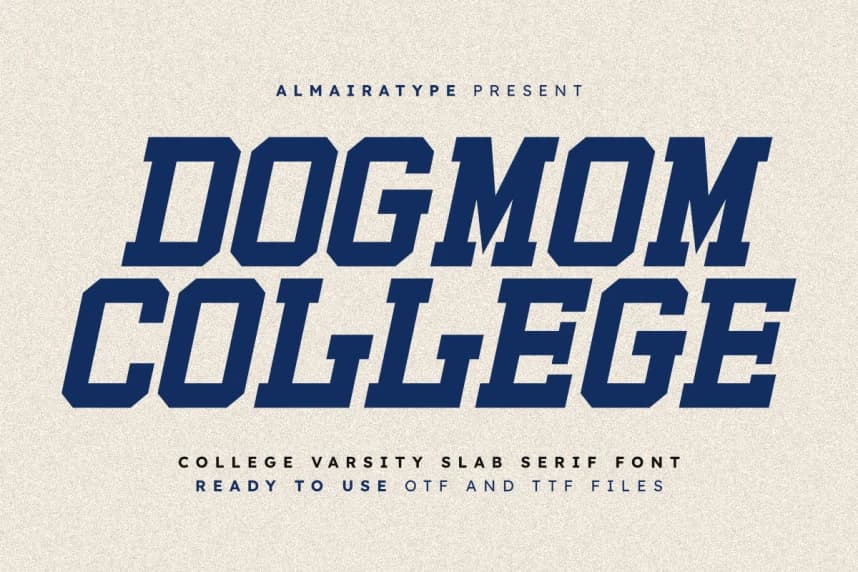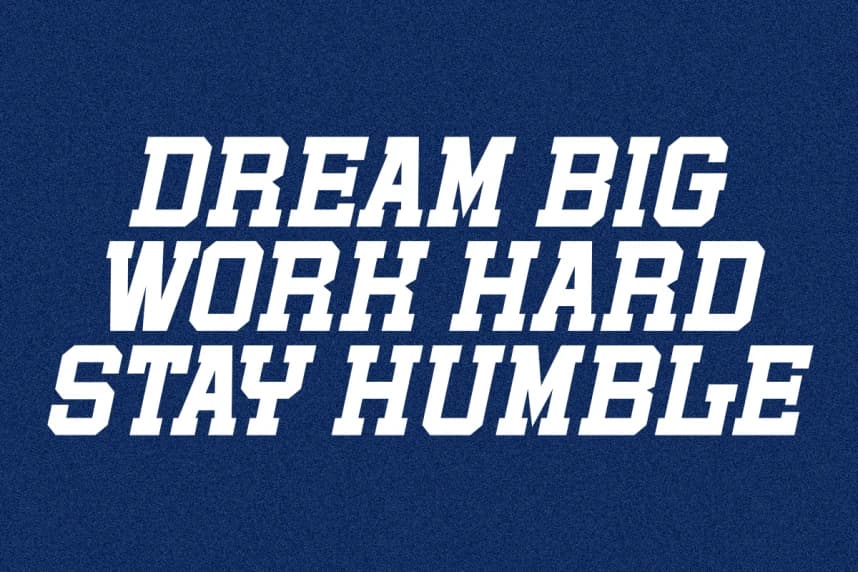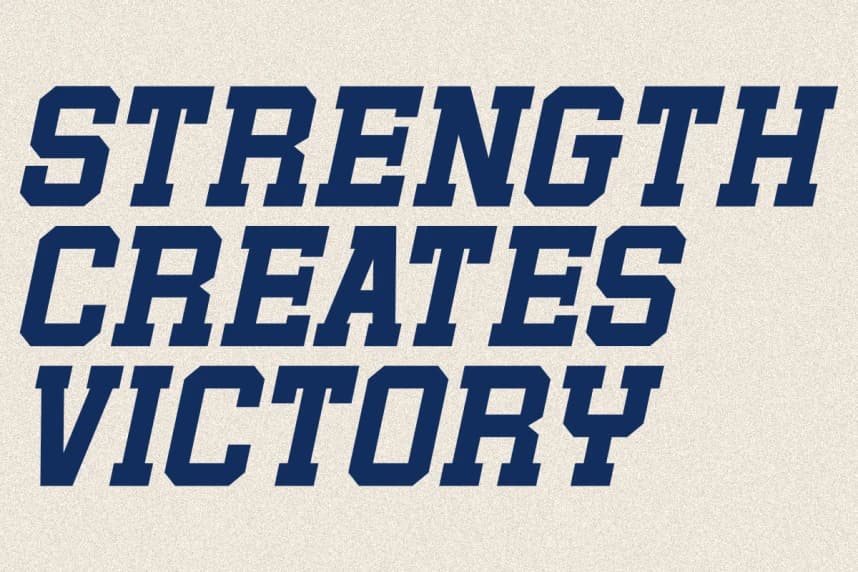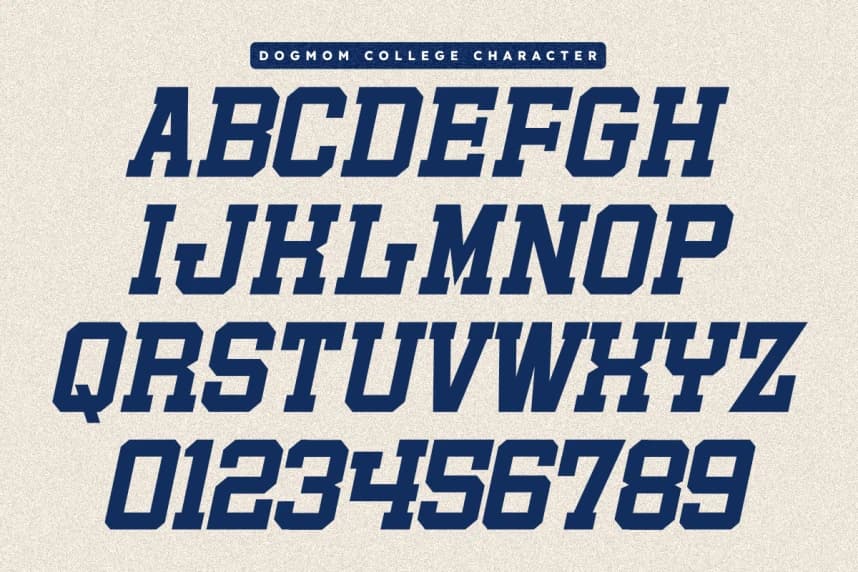
Dogmom College Font
Dogmom College Font is a bold and powerful collegiate display font designed to bring a classic varsity aesthetic to your modern creative projects. With Italic Style. This typeface captures the timeless spirit of university sports and team spirit
- Slab Serif